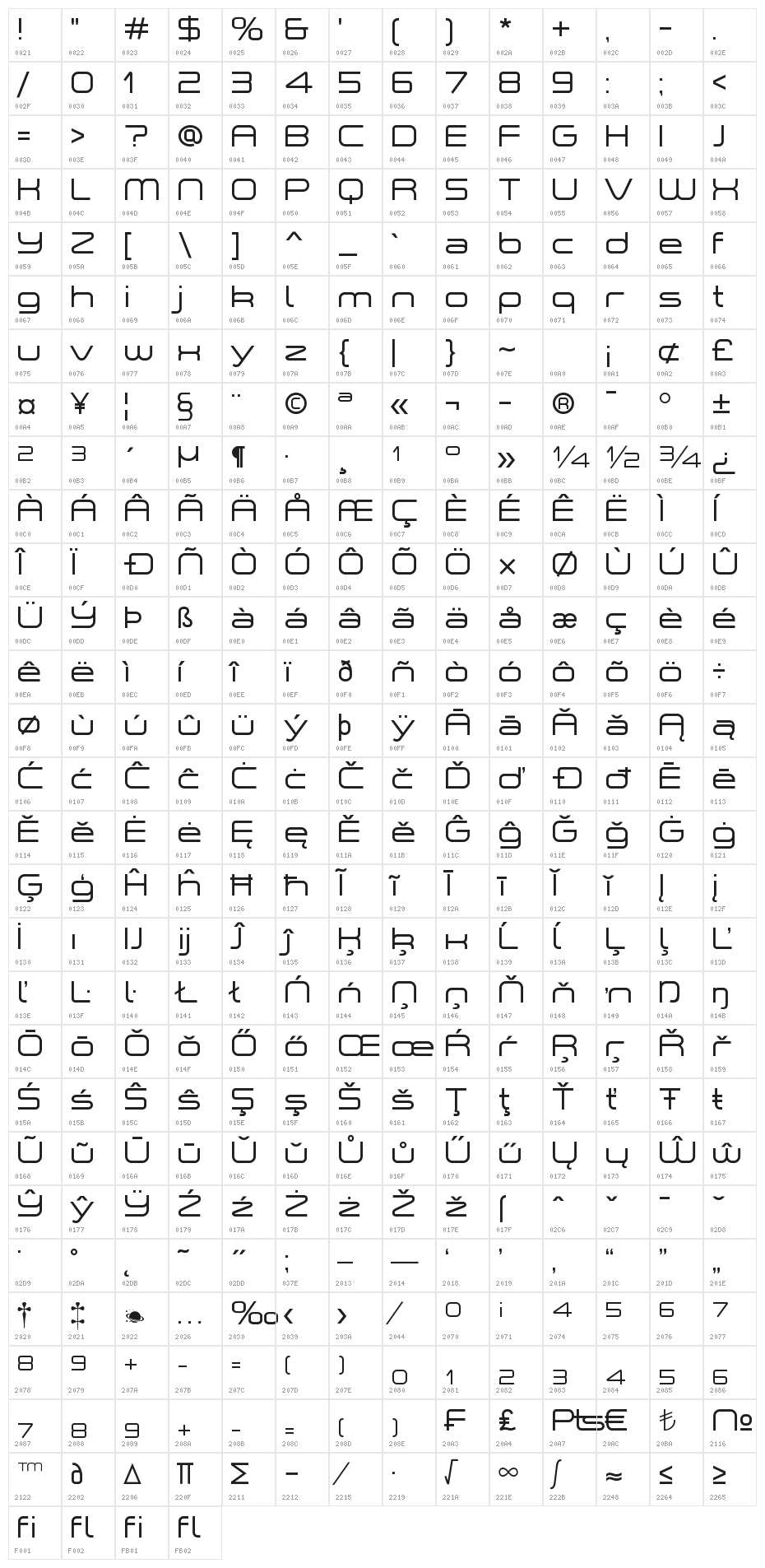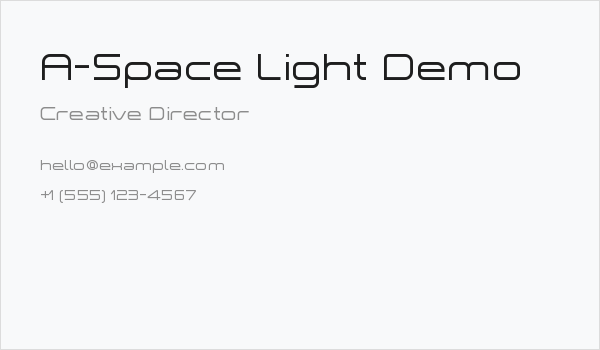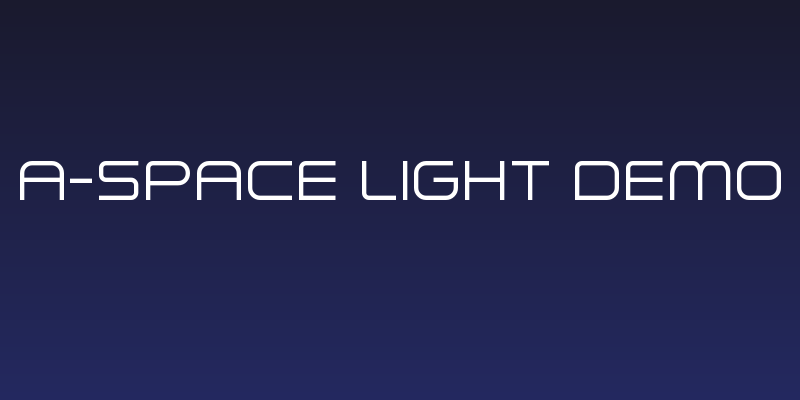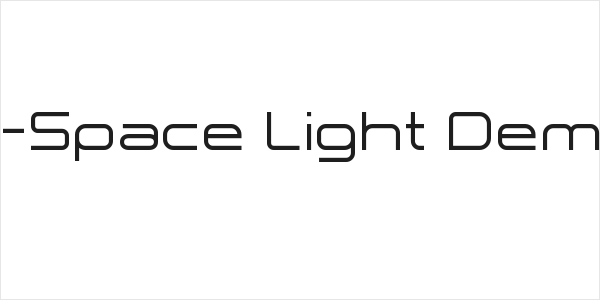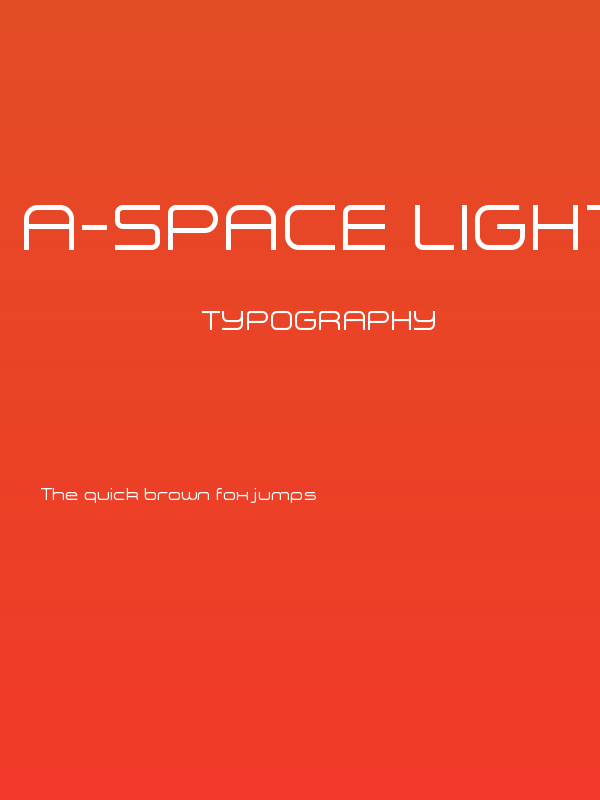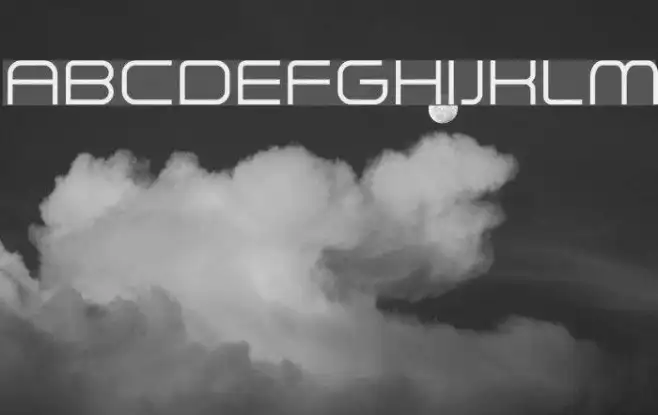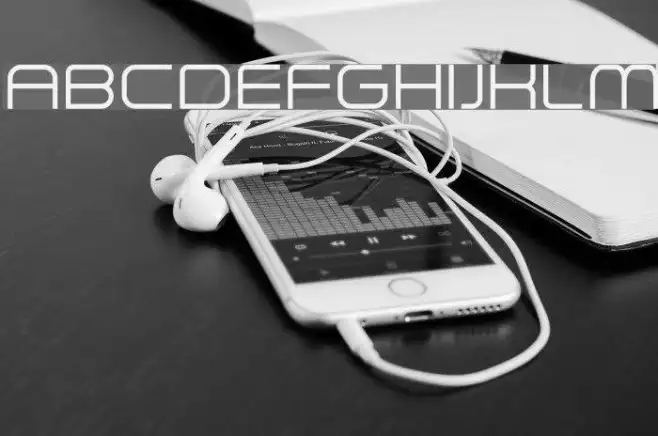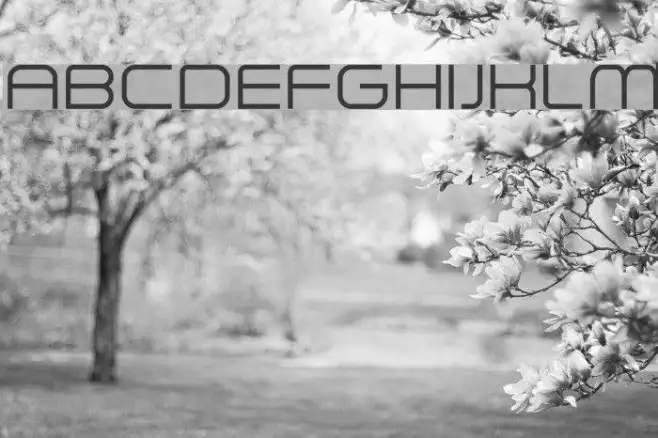
A-Space Light Demo Font
| Cas d'utilisation | Headlines, Logos, Web design |
| Projets proposés | Ideal for tech branding, modern web design, futuristic posters, and minimalist logos. |